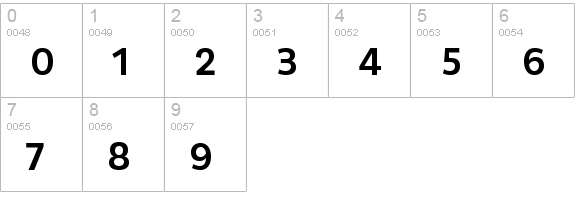
Pluto Cond Medium is a balanced, medium-weight, condensed-width variant in the Pluto typeface family \xE2\x80\x94 well suited to sub-headlines, navigation, and balanced editorial work.
The Pluto Cond Medium font is a versatile and modern typeface that exudes sophistication and elegance. With its clean lines and balanced proportions, this font is perfect for a wide range of design projects, from branding to editorial design. What sets Pluto Cond Medium apart is not only its aesthetic appeal but also its accessibility. This font is available for free download at FontsMarket.com, making it easy for designers and creatives to incorporate it into their work without any cost. Whether you're designing a sleek website, creating eye-catching posters, or crafting stylish packaging, Pluto Cond Medium is a reliable choice that will elevate your designs and make them stand out. Download this font today and see how it can enhance your creative projects with its unique charm and versatility.